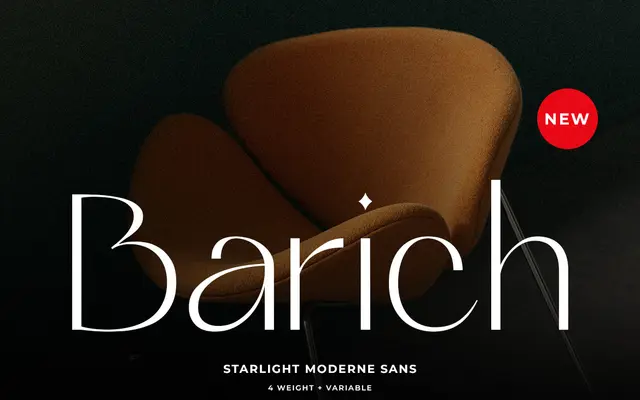
Barich Moderne Sans
A four-weight geometric sans with variable font support, aimed at branding, poster and packaging work.
Released in July 2024 by Prioritype, this family covers Regular through Bold with a variable font file included alongside OTF, TTF and WOFF formats. Coverage extends across a broad range of Latin-based languages including European and African scripts. The design is generic in character, positioned squarely at logo and social media work rather than extended text setting.
A clean, modern sans-serif with geometric tendencies marketed for display and branding use, with no strong humanist or grotesque characteristics described.